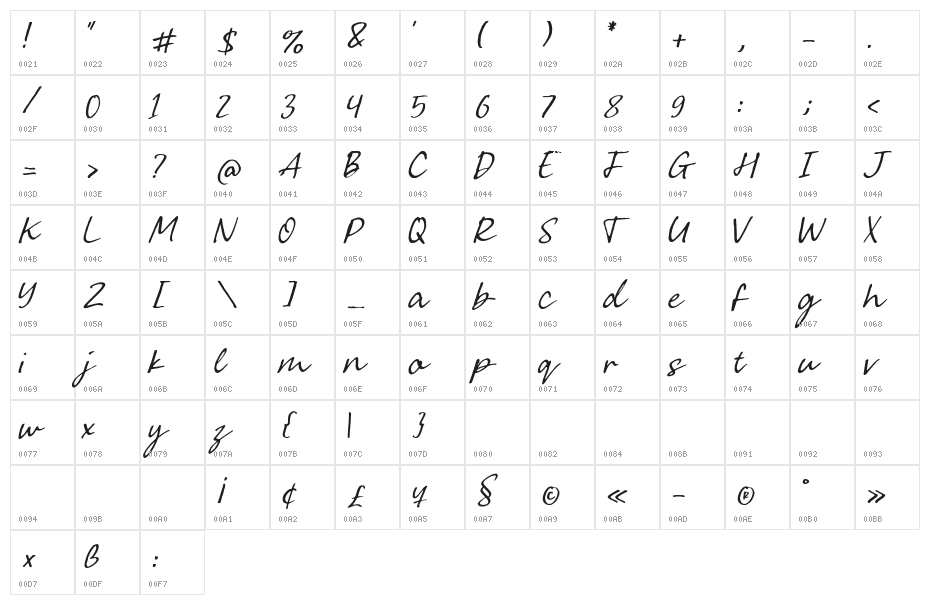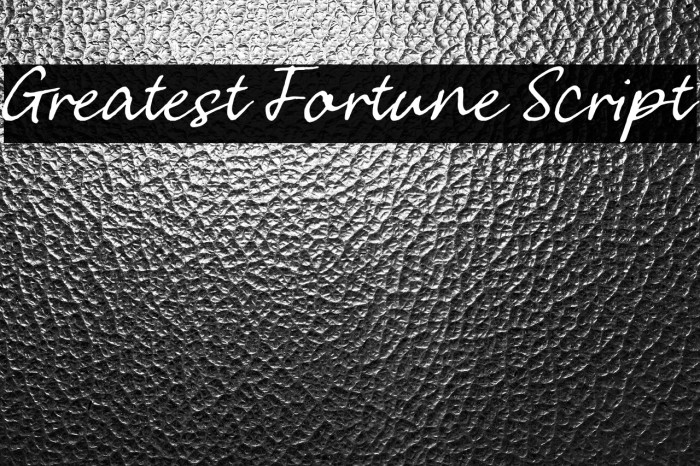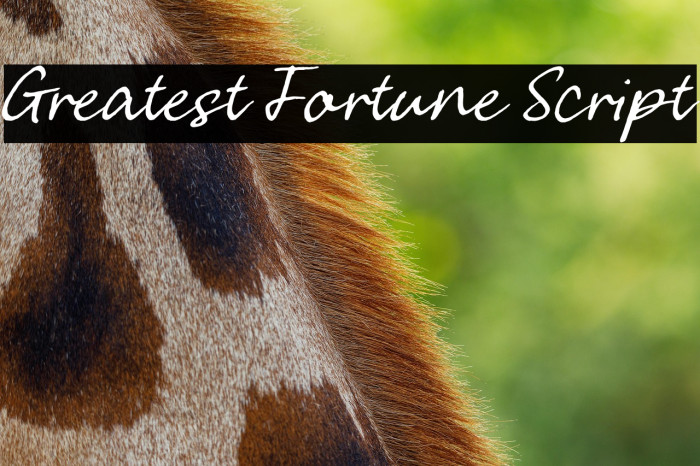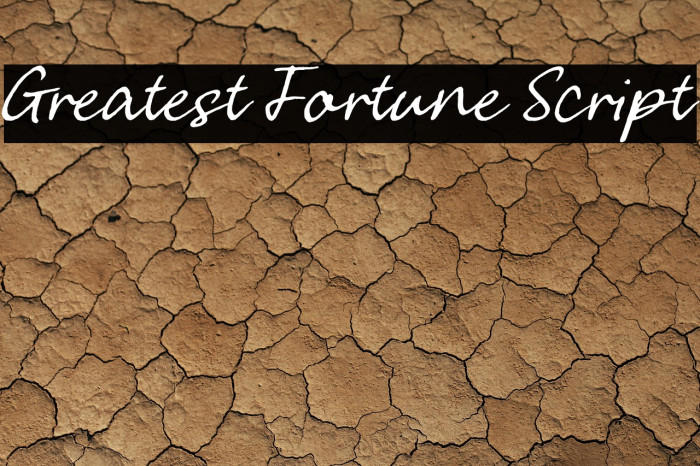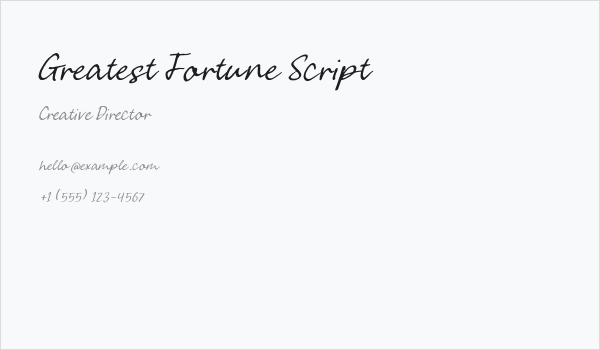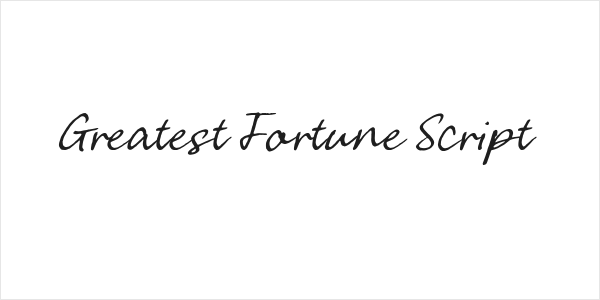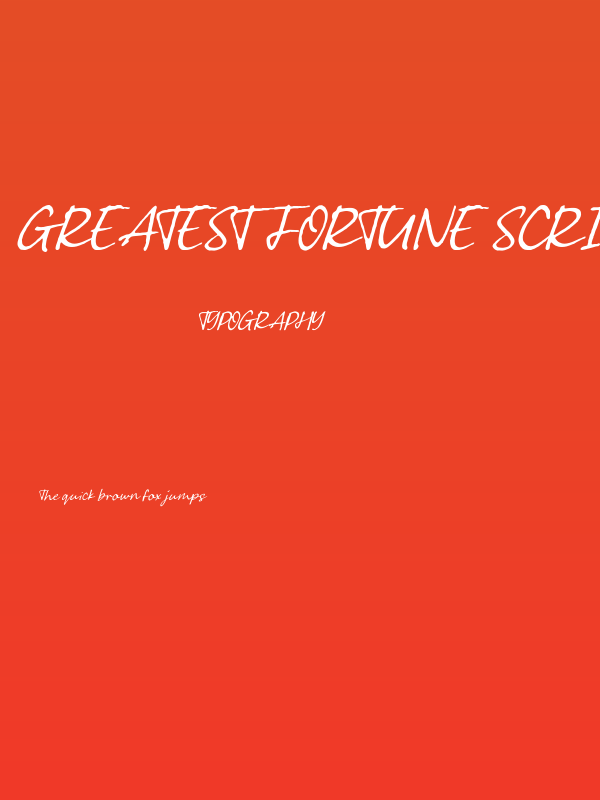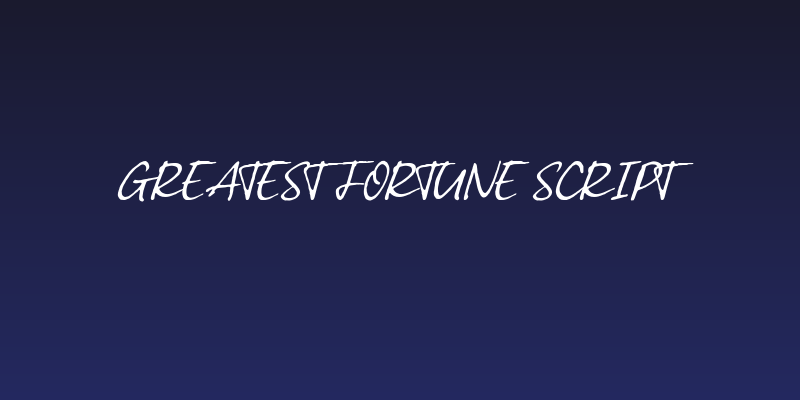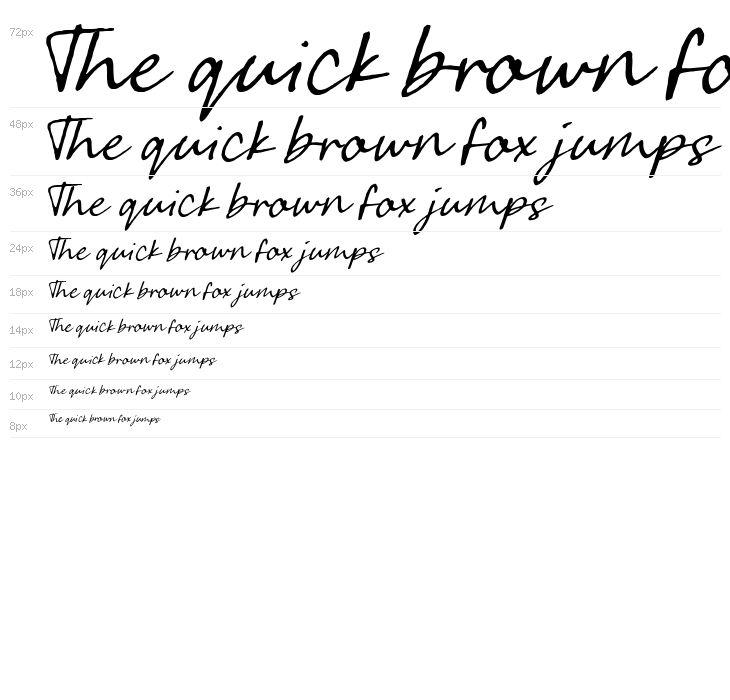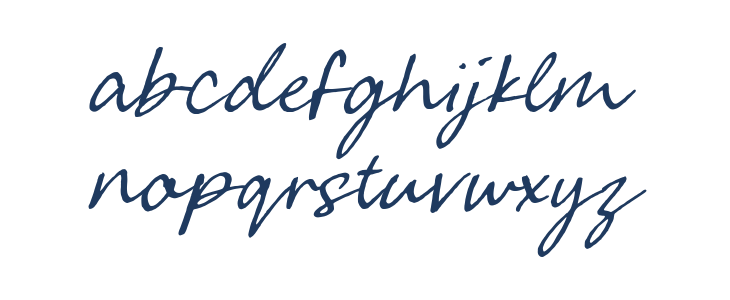
Greatest Fortune Script Font
Greatest Fortune Script Description
This font exudes a dynamic and energetic script style, characterized by its fluid, handwritten appearance. The letters are connected in a natural flow, mimicking the elegance of cursive handwriting. The strokes vary in thickness, adding a lively and personal touch to the text. The uppercase letters are bold and prominent, while the lowercase letters maintain a consistent rhythm, enhancing readability. The numerals and special characters are crafted with the same attention to detail, ensuring a cohesive look across all text elements. This font is ideal for projects that require a personal, yet professional touch, such as invitations, greeting cards, or branding materials.